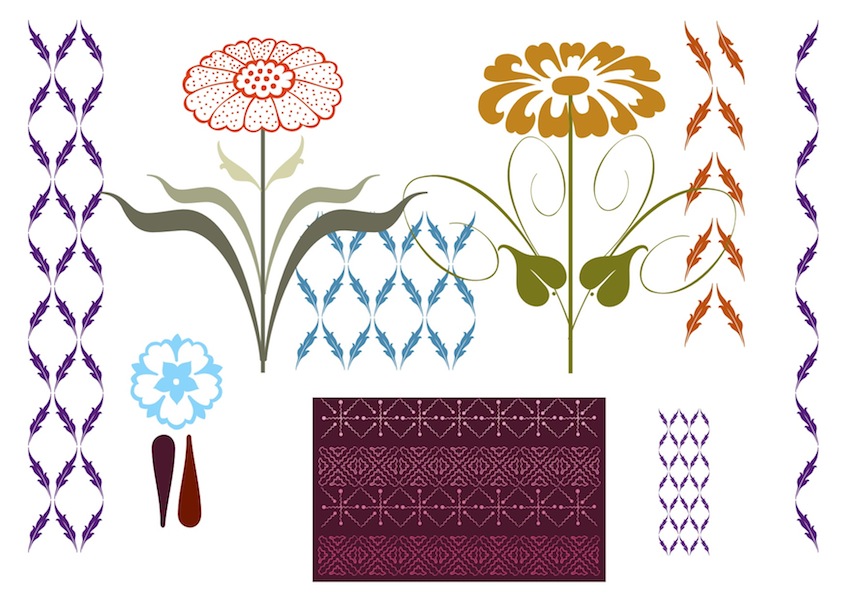
you can click on most of the thumbnails for a full-size image! In 1908 the Gefle Post printers in Sweden published a hard-cover type catalogue, stuffed full of delightful fonts and ornaments; they were only a provincial printing house, but the catalogue shows nearly 400 different founts, the great majority decorative - just think of the job it was for the apprentices to put everything back after a job was finished! Then there's a page of silhouettes, two pages of corner vignettes and two coloured title pages - and page after page of delightful ornaments and borders - most of it in the most elegant Art Nouveau style: enough to keep a keen font-maker busy for a very long time! Here's a first taste as a video clip, showing how I reconstructed the original pattern from the various elements, then, one stage at a time, added greys, colours and embossing ... Watch for LOTS more! Warmest thanks to antiquarian book-seller Olof Salmonsson for the stimulus! |